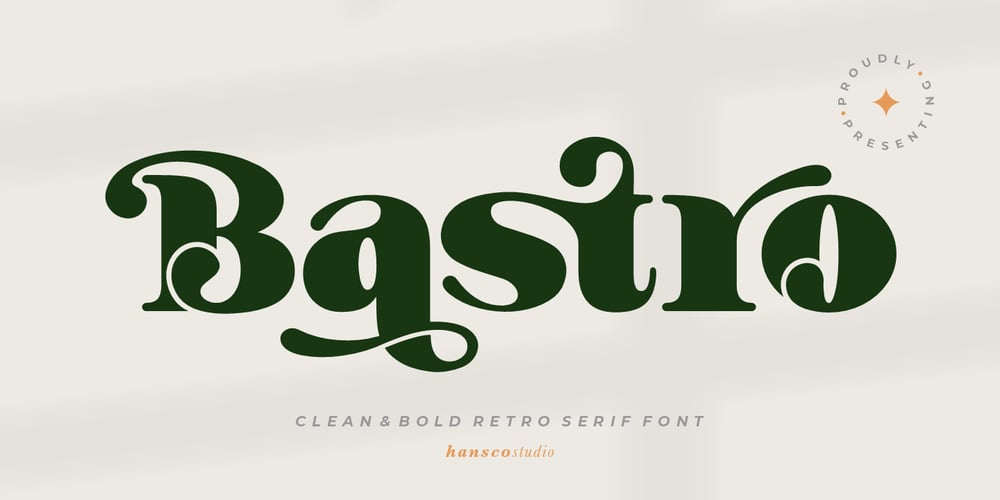
Bastro Font Family was designed by Burhan Afif and published by HansCo. Bastro contains 1 styles and family package options. Bastro is a bold retro serif fonts that feels casual and clean an incredible modern retro aesthetic. Use this Bastro serif font to add that special modern retro touch to any design idea you can think of!Masterfully designed to become a true favorite, this font has the potential to bring each of your creative ideas to the highest level!This font is PUA encoded which means you can access all of the glyphs and swashes with ease!Tutorial how to Install & use Alternate / Special Character : https://hanscostudio.com/tutorial/Enjoy!